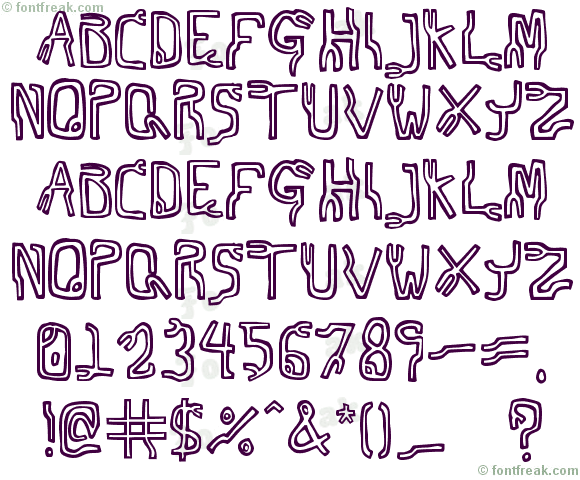
Technetium
Technetium — Character Map
About Technetium
The Technetium font by Divide By Zero is a unique display typeface that captures attention with its distinctive style. Characterized by irregular, bold strokes and playful curves, this font embodies a sense of modernity and creativity. The overall design features a smooth, consistent stroke weight, with an intriguing twist that adds character to each letter. The spacing between the characters is well-balanced, making it suitable for various applications without losing readability.
Perfect for a range of creative projects, the Technetium font shines in areas such as movie posters, where its bold aesthetic can help convey excitement and energy. It's also an excellent choice for branding materials, particularly for tech startups or creative agencies looking to establish a modern identity. Additionally, this font can elevate restaurant menus, making them visually appealing while maintaining clarity in presentation. Graphic designers will find it particularly useful for eye-catching headlines and promotional materials.
What sets the Technetium font apart is its ability to balance whimsy with clarity. The unique letterforms invite intrigue while remaining functional, making it a versatile option for anyone looking to enhance their visual communication. With its captivating style and straightforward licensing, the Technetium font free download is an excellent addition to any designer's toolkit. Embrace the creativity and modern flair of this typeface to elevate your projects and engage your audience effectively.